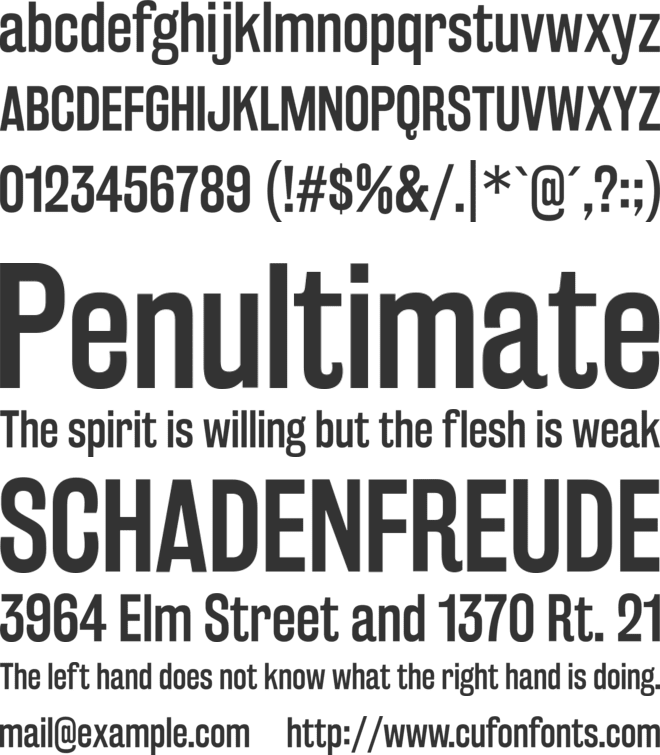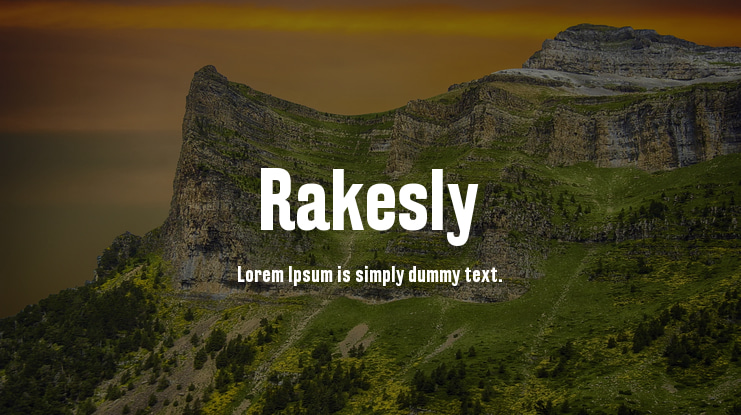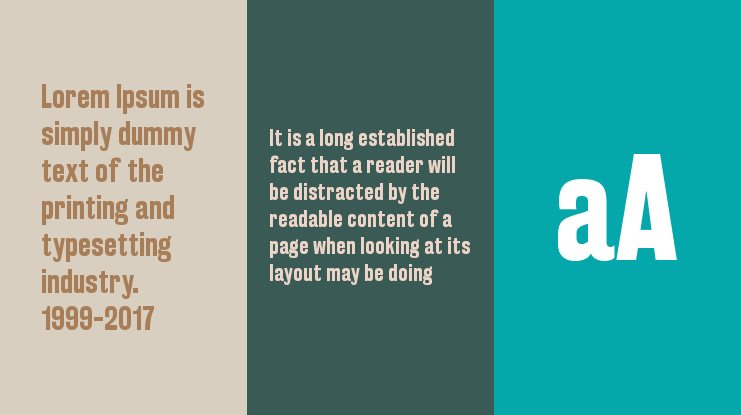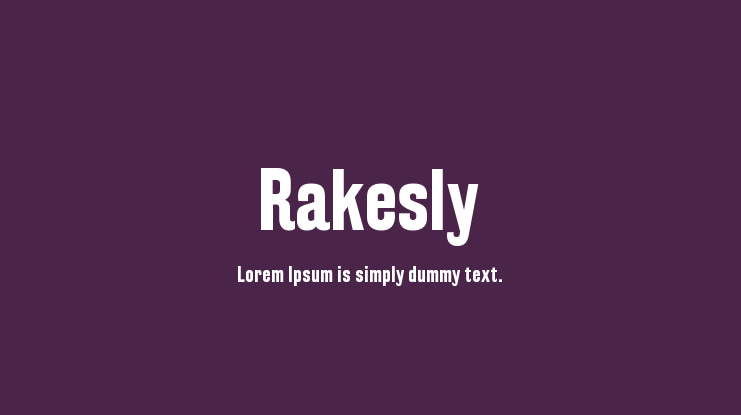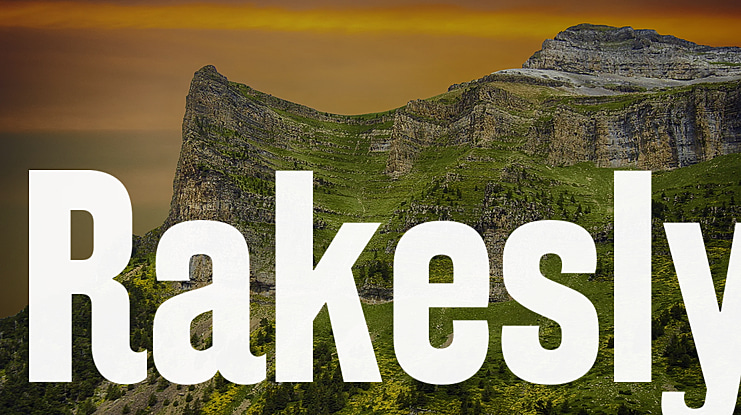
Rakesly Font Family
Rakesly was inspired by grotesque headliners from the 19th century. Rakesly includes 6 weights plus italics and comes with a free commercial use desktop license.